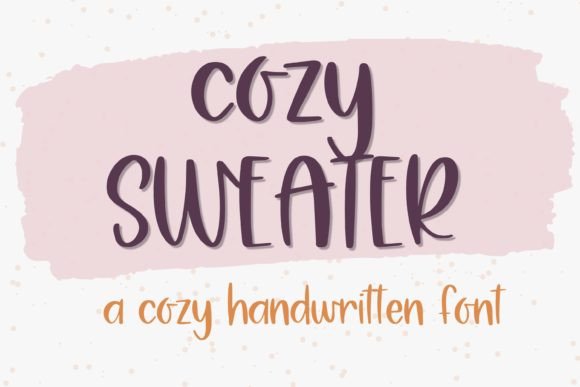
Behold the Cozy Sweater Font, an extraordinary script font family designed to spark creativity and charm! With its playful handwritten style, this sans-serif font is an emblem of lightheartedness and fun. Step into a realm of imagination and let your designs flourish.
Crafted with meticulous care by designingdigitals, the Cozy Sweater Font is a masterpiece that embodies the beauty of imperfections. Its whimsical and cheerful characters will breathe life into your projects, evoking a sense of childlike wonder and carefree spirit.
The Cozy Sweater Font is a true chameleon, effortlessly adapting to a myriad of creative endeavors, from lively logos and heartwarming greeting cards to trendy t-shirt designs and captivating social media posts. Unleash your inner artist and transform ordinary projects into extraordinary expressions of joy and inspiration.
Dive into a world of endless possibilities with the Cozy Sweater Font. Its versatility knows no bounds. Whether you're crafting invitations for special occasions, creating labels for handmade products, or adding a touch of personality to your digital designs, this font will elevate your work to new heights of creativity.
With the Cozy Sweater Font, you'll discover a secret weapon to capture the hearts of your audience. Its charming handwritten style exudes a sense of warmth and authenticity that resonates with people on a deeper level, making your designs truly memorable and impactful.
Don't settle for ordinary fonts that blend into the background. Embrace the magic of the Cozy Sweater Font and watch your creations come alive with a vibrant energy that captivates and captivates. It's the perfect choice for adding a personal touch to your designs and making a lasting impression on your audience.
Embark on a creative journey with the Cozy Sweater Font today and experience the joy of creating designs that resonate with beauty, charm, and boundless imagination. Let your creativity soar and transform your artistic vision into reality.